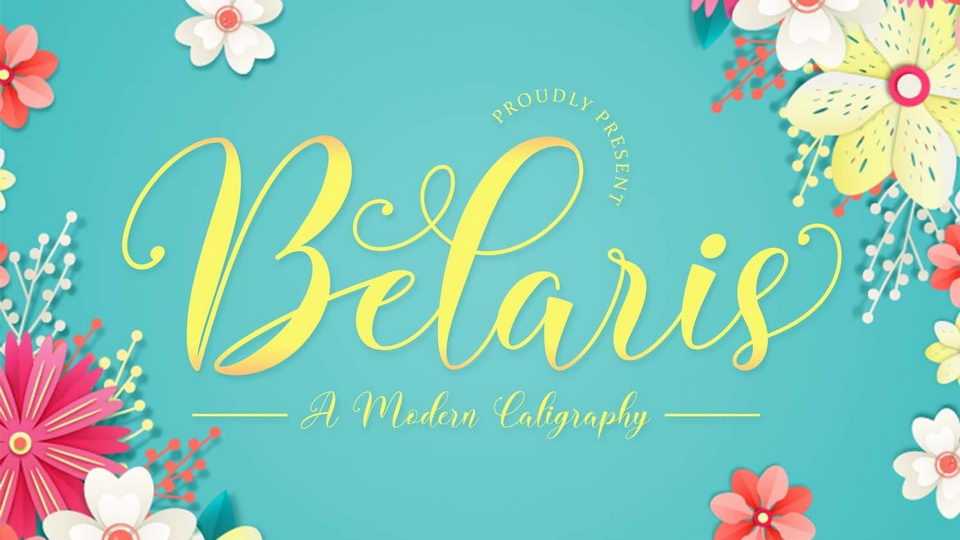
Download Belaris font, a beautiful and chic modern calligraphy typeface. Belaris will be suitable for all your other lovely projects that need beautiful calligraphy taste.
Designer: Naharstd